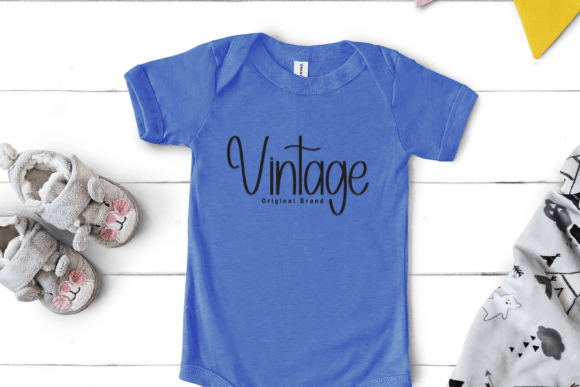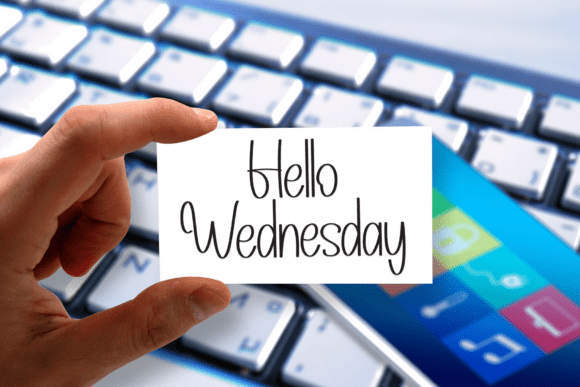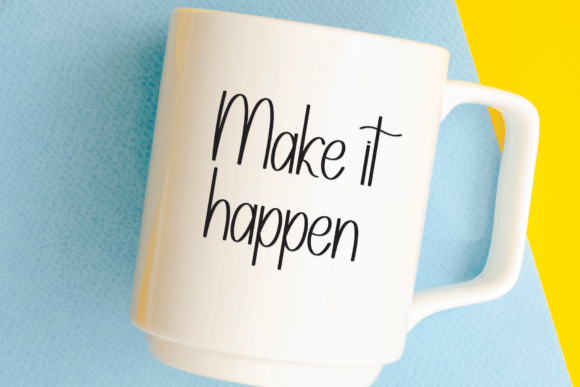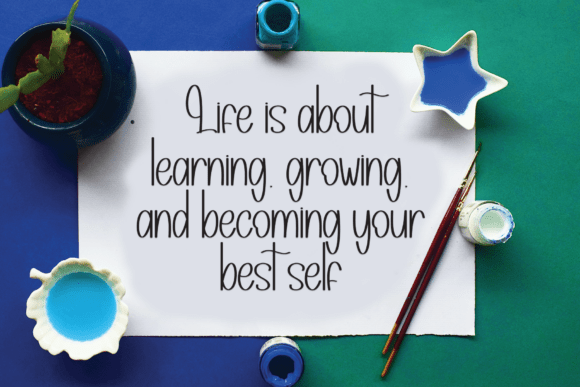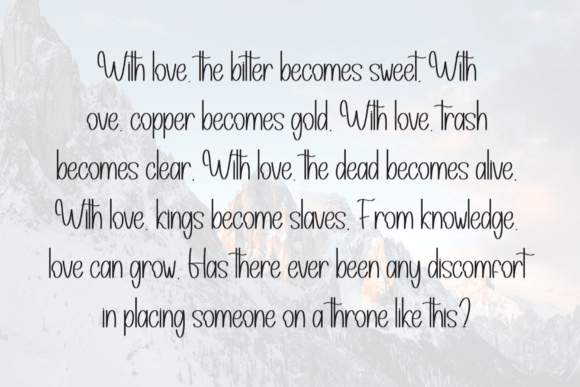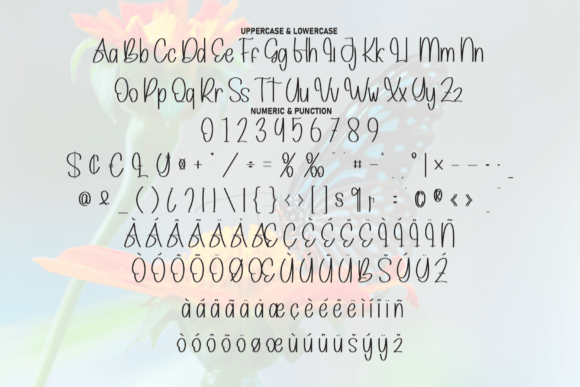
Introducing Butterfly Font: The Perfect Blend of Charm and Sophistication
Are you tired of using the same old fonts for your designs? Look no further than Butterfly Font, a lovingly handcrafted display font that exudes a cozy, welcoming aura. With its winning combination of delightful charm and sophistication, Butterfly Font is the ideal choice for composing entrancing wedding invitations, sentimental greeting cards, and any design in need of some joy.
The Story Behind Butterfly Font
Butterfly Font is more than just a font – it’s a work of art. Crafted with love and attention to detail, this font is designed to bring a playful touch to your creations. Whether you’re a designer, crafter, or DIY enthusiast, Butterfly Font is the perfect tool to elevate your artistic expression.
What Makes Butterfly Font Special?
So, what sets Butterfly Font apart from other fonts? Here are just a few of its unique features:
- Delightful Charm: Butterfly Font has a whimsical, playful quality that makes it perfect for designs that need a touch of personality.
- Sophistication: Despite its playful nature, Butterfly Font is also surprisingly sophisticated, making it suitable for more formal designs, such as wedding invitations and business cards.
- Handcrafted: Unlike generic, computer-generated fonts, Butterfly Font is lovingly handcrafted, giving it a unique, human touch.
- Versatile: Whether you’re designing a greeting card, invitation, or social media graphic, Butterfly Font is versatile enough to fit any style or theme.
Uses for Butterfly Font
So, what can you use Butterfly Font for? The possibilities are endless! Here are a few ideas to get you started:
- Wedding Invitations: Add a touch of romance and whimsy to your wedding invitations with Butterfly Font.
- Greeting Cards: Create sentimental, heartfelt greeting cards for special occasions, such as birthdays, anniversaries, and holidays.
- Social Media Graphics: Use Butterfly Font to add a playful touch to your social media graphics, such as Facebook posts, Instagram stories, and Twitter headers.
- Branding: Incorporate Butterfly Font into your brand identity to add a touch of personality and whimsy.
Tips for Using Butterfly Font
Here are a few tips for getting the most out of Butterfly Font:
- Experiment with Sizes: Don’t be afraid to experiment with different font sizes to create visual interest and hierarchy.
- Pair with Other Fonts: Butterfly Font pairs well with other fonts, so don’t be afraid to get creative and try out different combinations.
- Use it Sparingly: While Butterfly Font is beautiful, it can be overwhelming if used too much. Use it sparingly to create emphasis and add visual interest.